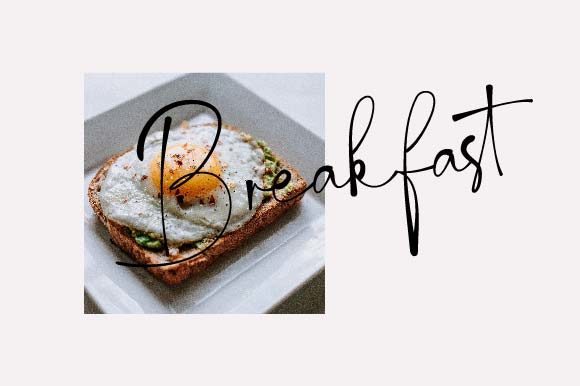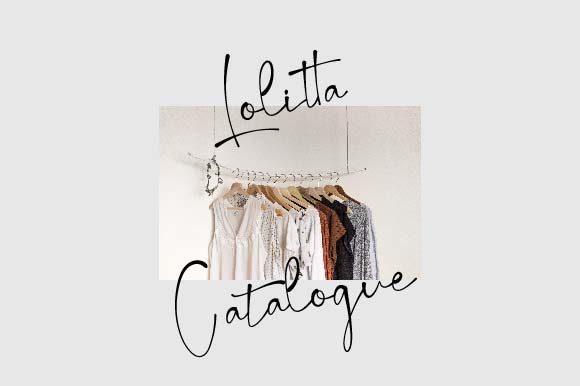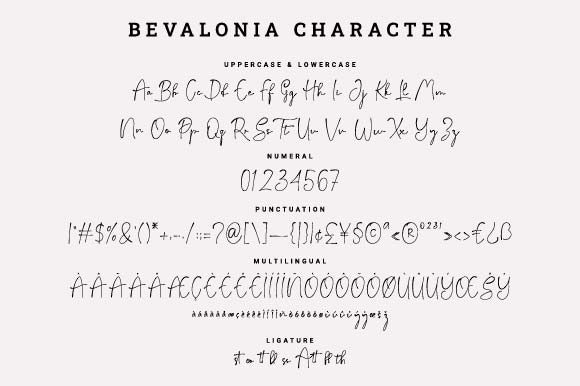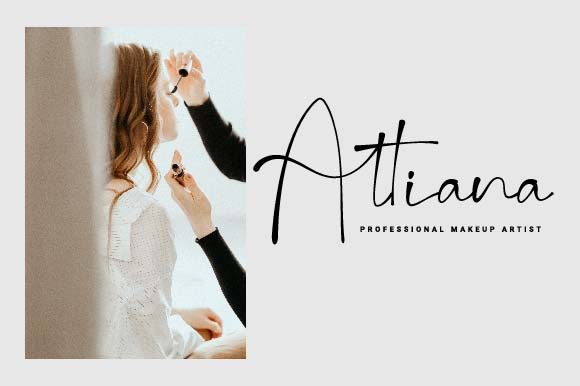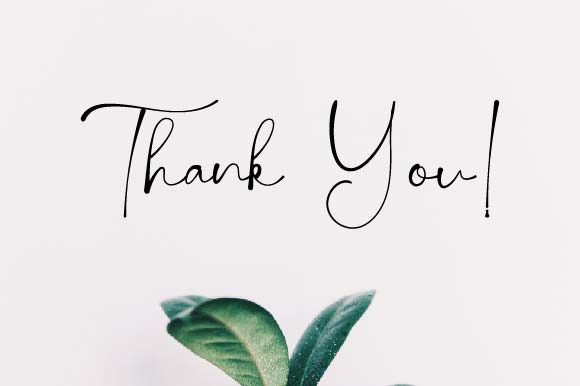
Introducing Bevalonia Font: Elevate Your Designs with a Touch of Elegance
Are you a designer or crafter looking for a unique and versatile font to take your creative projects to the next level? Look no further than Bevalonia Font, a stunning thin and distinct handwritten font that is sure to make your designs come alive. With its beautiful and well-balanced characters, Bevalonia Font is an excellent choice for a wide range of design applications.
The Characteristics of Bevalonia Font
Bevalonia Font is a carefully crafted handwritten font that boasts a range of characteristics that make it stand out from the crowd. Its thin and delicate lines give it a sense of elegance and sophistication, while its distinct letterforms ensure that it remains highly legible. Whether you’re working on a logo, a poster, or a digital project, Bevalonia Font is the perfect choice for adding a touch of refinement and style.
Why Bevalonia Font is a Great Choice for Designers and Crafters
So why should you choose Bevalonia Font for your next design project? Here are just a few reasons why it’s an excellent choice:
- Versatility: Bevalonia Font is incredibly versatile, and can be used in a wide range of design applications, from logos and posters to digital projects and crafts.
- Elegance: The font’s thin and delicate lines give it a sense of elegance and sophistication, making it perfect for projects where you want to add a touch of refinement.
- Legibility: Despite its delicate lines, Bevalonia Font remains highly legible, even at small sizes.
- Uniqueness: Bevalonia Font is a unique and distinctive font that will help your designs stand out from the crowd.
How to Use Bevalonia Font in Your Designs
Using Bevalonia Font in your designs is easy. Here are a few tips to get you started:
- Pair it with bold fonts: Bevalonia Font works beautifully when paired with bold fonts, creating a striking contrast that adds visual interest to your designs.
- Use it for headings: Bevalonia Font is perfect for headings and titles, where its elegant lines and delicate curves can really shine.
- Add it to your branding: If you’re looking for a font to use in your branding, Bevalonia Font is an excellent choice. Its unique and distinctive letterforms will help your brand stand out.
Tips for Getting the Most Out of Bevalonia Font
Here are a few tips for getting the most out of Bevalonia Font:
- Experiment with different sizes: Bevalonia Font looks great at a range of sizes, from small and delicate to large and bold.
- Play with color: Bevalonia Font works beautifully in a range of colors, from bright and bold to pastel and subtle.
- Use it in combination with other fonts: Don’t be afraid to combine Bevalonia Font with other fonts to create a unique and visually interesting design.
In conclusion, Bevalonia Font is a stunning thin and distinct handwritten font that is sure to elevate your designs to the next level. With its beautiful and well-balanced characters, Bevalonia Font is an excellent choice for a wide range of design applications, from logos and posters to digital projects and crafts. Whether you’re a designer or crafter, Bevalonia Font is a great choice for adding a touch of elegance and sophistication to your work. So why not give it a try and see how it can help bring your creative ideas to life?
Bevalonia Font: The Perfect Choice for Your Next Design Project
In today’s competitive design landscape, it’s more important than ever to choose fonts that will help your designs stand out. Bevalonia Font is a unique and distinctive font that is sure to make your designs come alive. With its elegant lines, delicate curves, and highly legible letterforms, Bevalonia Font is the perfect choice for your next design project. So why not give it a try and see the difference it can make?